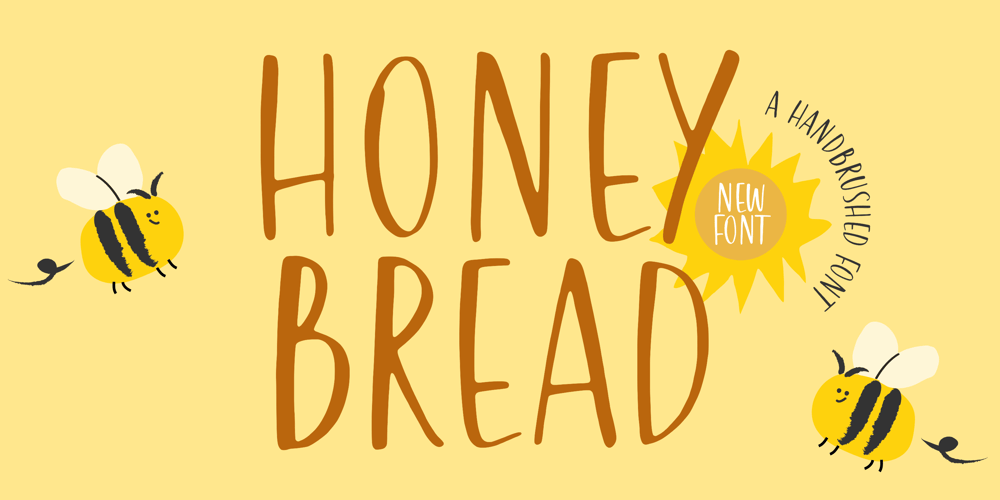
Honey Bread Font Family was designed by Restu Angga and published by Balpirick. Honey Bread contains 1 styles and family package options. Honey Bread is a Handbrushed Font.Whether you’re using it for crafts, digital design, presentations, or making greeting cards, this font has the potential to become your favorite go-to font, no matter the occasion!This font only has allcaps letters. – also multilingual supportEnjoy the font! Feel free to comment or feedback!Thank you!